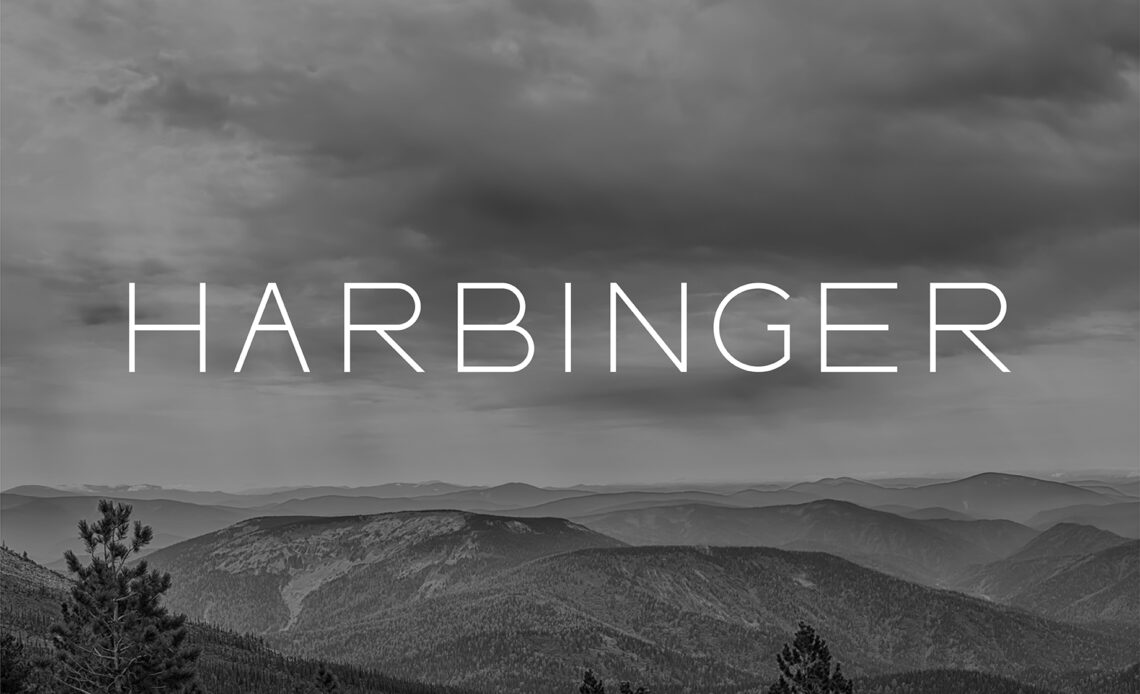
Unleash the power of Harbinger, the font that will ignite your brand's presence with unparalleled clarity and sophistication. Its soft geometry and generous spacing craft a striking visual that commands attention and leaves a lasting impression.
Step into the world of business cards that radiate professionalism and style. Harbinger's clean lines and confident strokes seamlessly convey your message, making every introduction a memorable encounter. Its versatility extends across a myriad of designs, empowering you to create stunning logos, captivating posters, and influential presentations that captivate your audience.
Imagine your brand soaring to new heights, guided by the bold strokes of Harbinger. Its wide, sans-serif design commands attention without overpowering, ensuring your message shines through with unwavering brilliance. Embrace the font that embodies success, sophistication, and a touch of daring.
With Harbinger as your ally, your brand will exude confidence and attract opportunities like never before. Its clarity invites engagement, while its understated elegance elevates every interaction. Discover the font that will transform your communications into captivating experiences that leave an indelible mark on your audience.